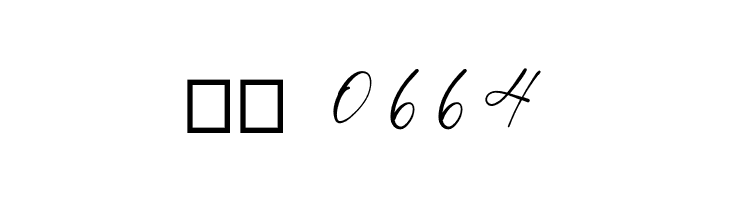
• Birdman
A modern, geometric font with a sleek, minimalistic design.
• Birdman Bold
A bold, geometric font with a modern and sleek design.
• Birdman Light
A sleek, modern font with geometric, monospaced characteristics and rounded edges.
• Birdman Oblique
A sleek, futuristic oblique font with a dynamic and modern design.
• Birdrockers
A bold, brush-style font with dynamic, handwritten flair.
• Birds
• birds a
A decorative, bird-themed illustrative font.
• Birds of a Feather
A display font using bird silhouettes as letterforms.
• Birds of Paradise
• Birds of Paradise - Personal use Only
• Birds Requiem
A bold, geometric font with a three-dimensional effect and shadow-like detailing.
• Birds Requiem
A bold, outlined font with a modern, three-dimensional effect.
• Birds Requiem Svart
A bold, textured font with a grunge aesthetic and dynamic character design.
• Birds Requiem Svart
A bold, distressed font with thick strokes and a strong presence.
• Birds TFB
Bird silhouettes used as glyphs for each character.
• Birds-Relaunch
A collection of whimsical bird illustrations in various playful styles.
• BirDSAnDFEatHerS
A decorative, modern blackletter-inspired font with elegant flourishes and high contrast.
• BirdsAndFriends
Silhouette-style animal and bird icon font.
• BirdsAndOtherBeings
A whimsical and decorative design featuring playful bird-like characters.
• BirdsBirds
Ornamental display font with bird-themed pictorial glyphs.